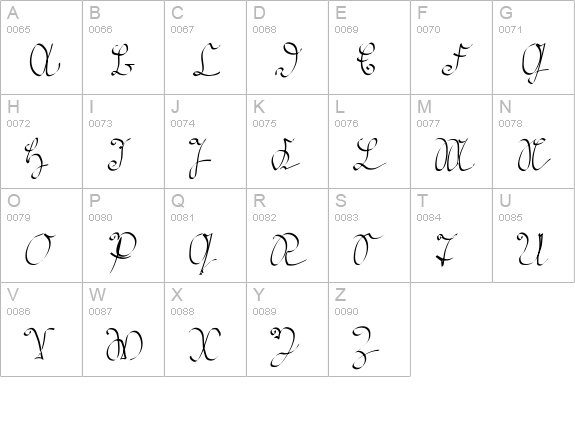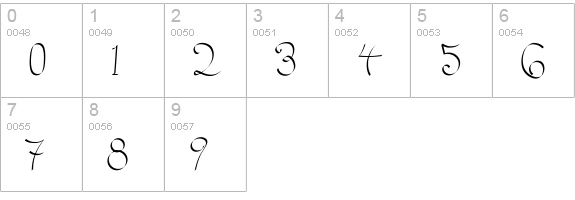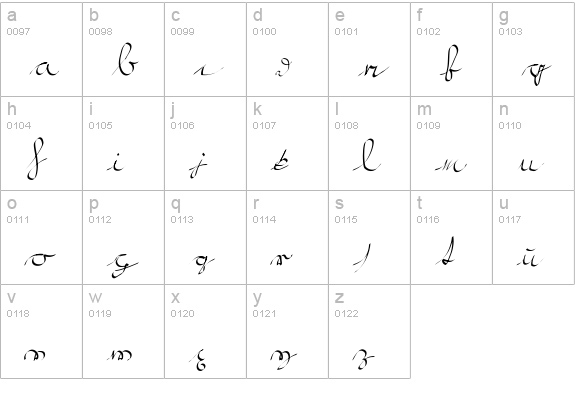
Kroebern Font Details
Kroebern is a modern and sleek font that perfectly blends elegance with simplicity. Its clean lines and stylish curves make it a versatile choice for a wide range of design projects. Whether you're creating a professional presentation or crafting a stylish logo, Kroebern is sure to make your text stand out. The best part about Kroebern is that it is completely free to use. Yes, you read that right – this stunning font is available for download at FontsMarket.com at absolutely no cost. So go ahead and enhance your designs with the sophistication of Kroebern without breaking the bank. Download it today and take your typography game to the next level!